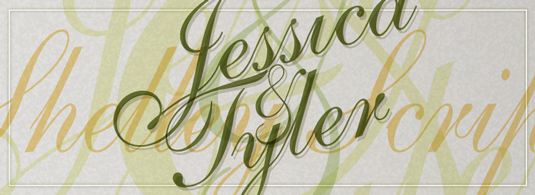
Greatest fonts countdown: 65 - Shelley
We're counting down the 100 greatest typefaces in existence. Here is number 65...
But without further ado, here is the 65th best typeface…
65. Shelley
- Matthew Carter, 1972
Shelley is a classic cursive handwriting script crafted by legendary type designer Matthew Carter in 1972. The small family of typefaces have small x-heights relative to their ascenders and descenders, but longer descenders compared to Snell – another script designed by Carter in 1966.
Shelley is a revival of the handwriting of the early eighteenth century English writing master, George Shelley, and has five styles: Shelley Script Pro, Andante Script, Volante Script, Allegro Script and Script Pro Cyrillic.